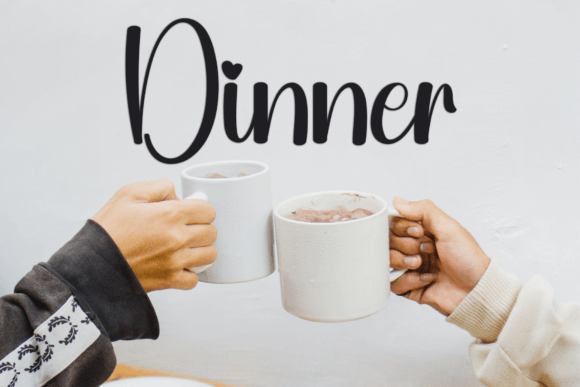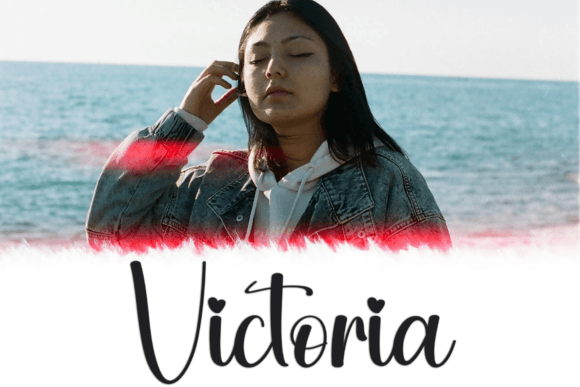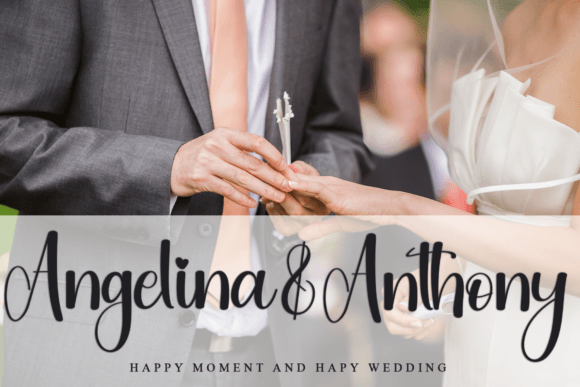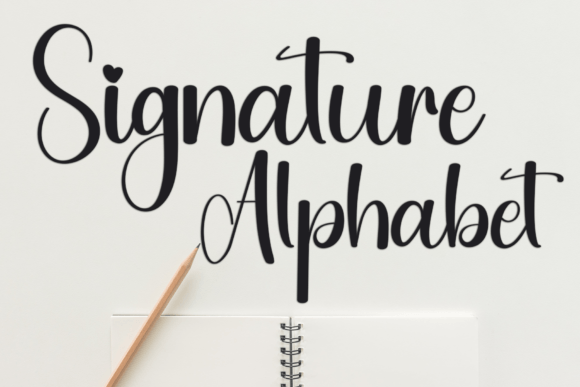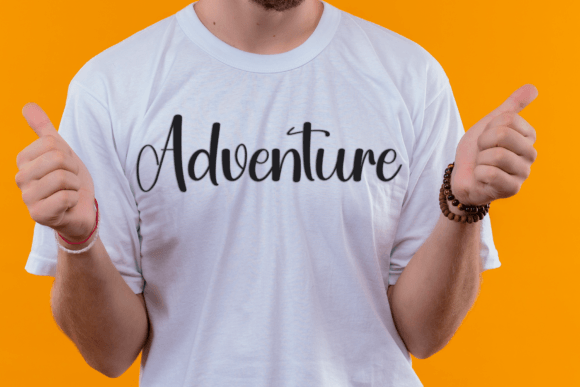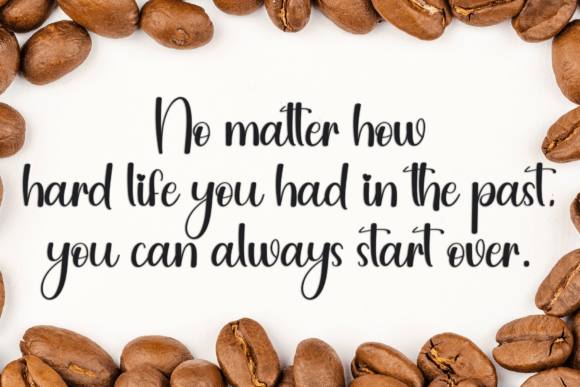
Coffee Shop Font: Elevate Your Designs with a Touch of Elegance
Are you a designer, crafty DIY enthusiast, or social media influencer looking for a font that can add a dash of sophistication to your creative projects? Look no further than the Coffee Shop Font, a beautiful, handmade script font designed to bring a touch of elegance to your designs. In this article, we’ll dive into the world of Coffee Shop Font, exploring its features, benefits, and uses, as well as provide tips on how to make the most of this stunning font.
What is Coffee Shop Font?
Coffee Shop Font is a magical handwritten font carefully crafted to give your designs a unique, high-end feel. With its flowing script and delicate lines, this font is perfect for adding a touch of whimsy and sophistication to any project. Whether you’re working on a logo, social media graphics, or DIY crafts, Coffee Shop Font is sure to impress.
Key Features of Coffee Shop Font
- Handwritten script: Coffee Shop Font boasts a beautiful, handwritten script that adds a personal touch to your designs.
- Elegant and refined: With its delicate lines and flowing curves, this font exudes elegance and sophistication.
- Versatile: Use Coffee Shop Font for a wide range of projects, from Instagram graphics to DIY crafts, logos, and more.
- Easy to read: Despite its ornate design, Coffee Shop Font is surprisingly easy to read, making it perfect for use in both digital and print materials.
Benefits of Using Coffee Shop Font
So why choose Coffee Shop Font for your next project? Here are just a few benefits of using this stunning font:
- Adds a touch of elegance: Coffee Shop Font instantly elevates your designs, giving them a high-end feel that’s sure to impress.
- Unique and creative: With its handmade script, Coffee Shop Font adds a unique touch to your designs, setting them apart from the crowd.
Using Coffee Shop Font for Instagram and Social Media
As a social media influencer or designer, you know how important it is to create engaging, eye-catching graphics for Instagram and other platforms. Coffee Shop Font is the perfect choice for:
- Instagram quotes and graphics: Add a touch of elegance to your Instagram quotes and graphics with Coffee Shop Font.
- Social media headers: Use Coffee Shop Font to create stunning social media headers that showcase your brand’s personality.
- Branding and logos: Create a cohesive brand identity with Coffee Shop Font, perfect for use in logos, business cards, and more.
Using Coffee Shop Font for DIY Projects
Coffee Shop Font is also perfect for crafty DIY enthusiasts looking to add a personal touch to their projects. Try using it for:
- Handmade cards and invitations: Add a touch of elegance to your handmade cards and invitations with Coffee Shop Font.
- DIY crafts and decor: Use Coffee Shop Font to create beautiful, one-of-a-kind DIY crafts and decor, such as signs, banners, and more.
- Journaling and scrapbooking: Add a touch of whimsy and sophistication to your journaling and scrapbooking projects with Coffee Shop Font.
Tips for Getting the Most Out of Coffee Shop Font
To make the most of Coffee Shop Font, here are a few tips to keep in mind:
- Experiment with colors and textures: Try pairing Coffee Shop Font with different colors and textures to create unique, eye-catching designs.
- Mix and match with other fonts: Combine Coffee Shop Font with other fonts to create interesting, dynamic designs.
- Play with size and scale: Experiment with different font sizes and scales to add visual interest to your designs.
In conclusion, Coffee Shop Font is a versatile, elegant font that’s perfect for designers, crafty DIY enthusiasts, and social media influencers looking to add a touch of sophistication to their creative projects. With its beautiful handwritten script, flowing curves, and delicate lines, this font is sure to impress. So why wait? Download Coffee Shop Font today and start elevating your designs to the next level!